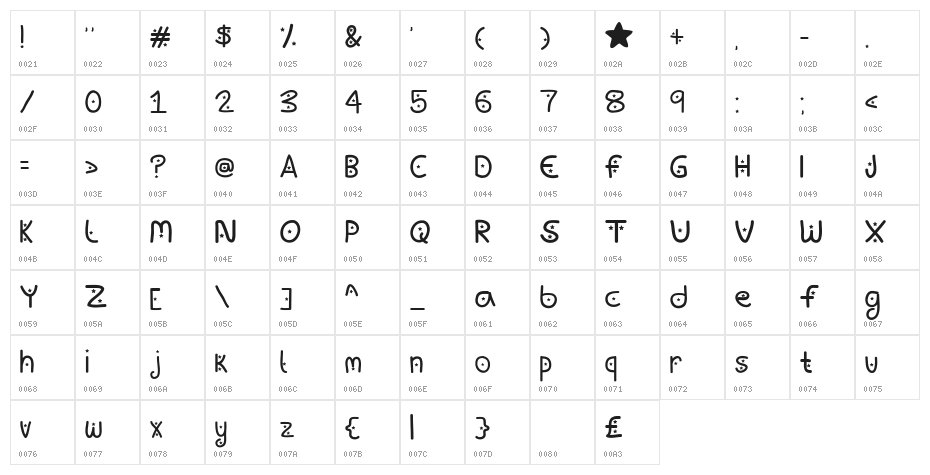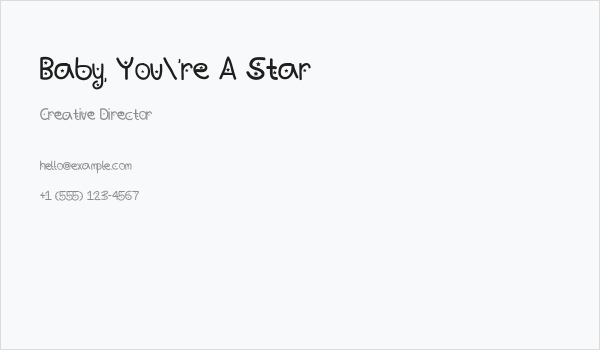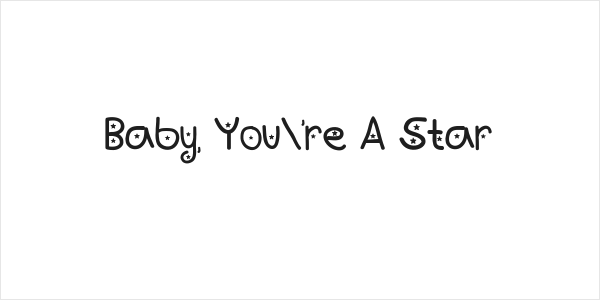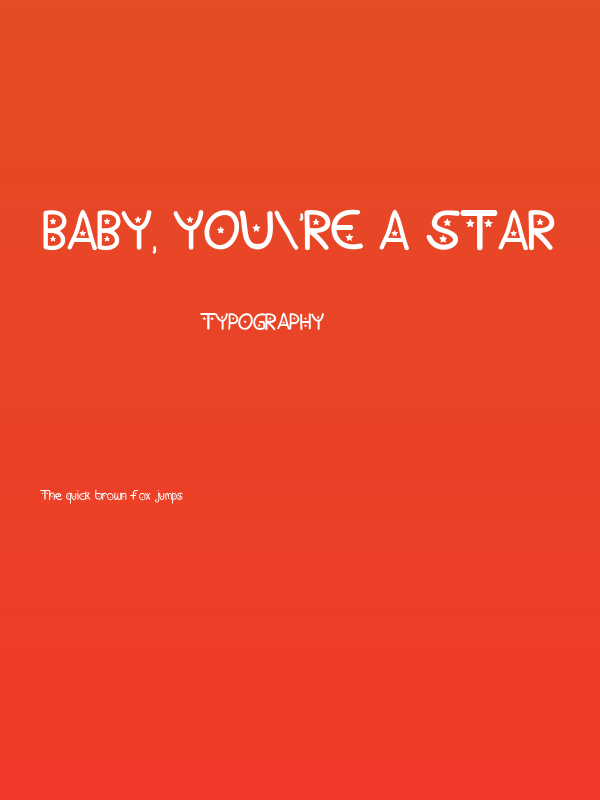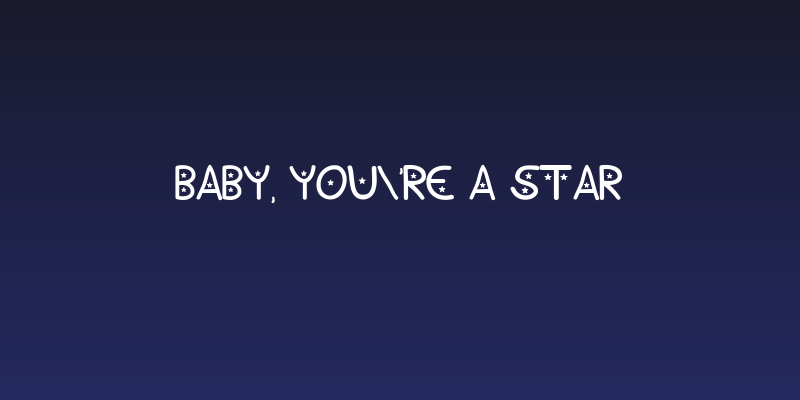
Baby, You're A Star Font
Baby, You're A Star Description
This playful and whimsical font features a unique design where each character is adorned with small stars, giving it a fun and decorative appearance. The letters are rounded and slightly irregular, adding to the casual and informal feel. The font maintains a consistent stroke width, providing a uniform look across all characters. The inclusion of stars within the characters makes it particularly eye-catching and suitable for creative projects. The numbers and special characters are designed to match the playful style of the alphabet, ensuring a cohesive look throughout.
| Proposed Projects | Ideal for children's books, party invitations, playful branding, and creative posters. |